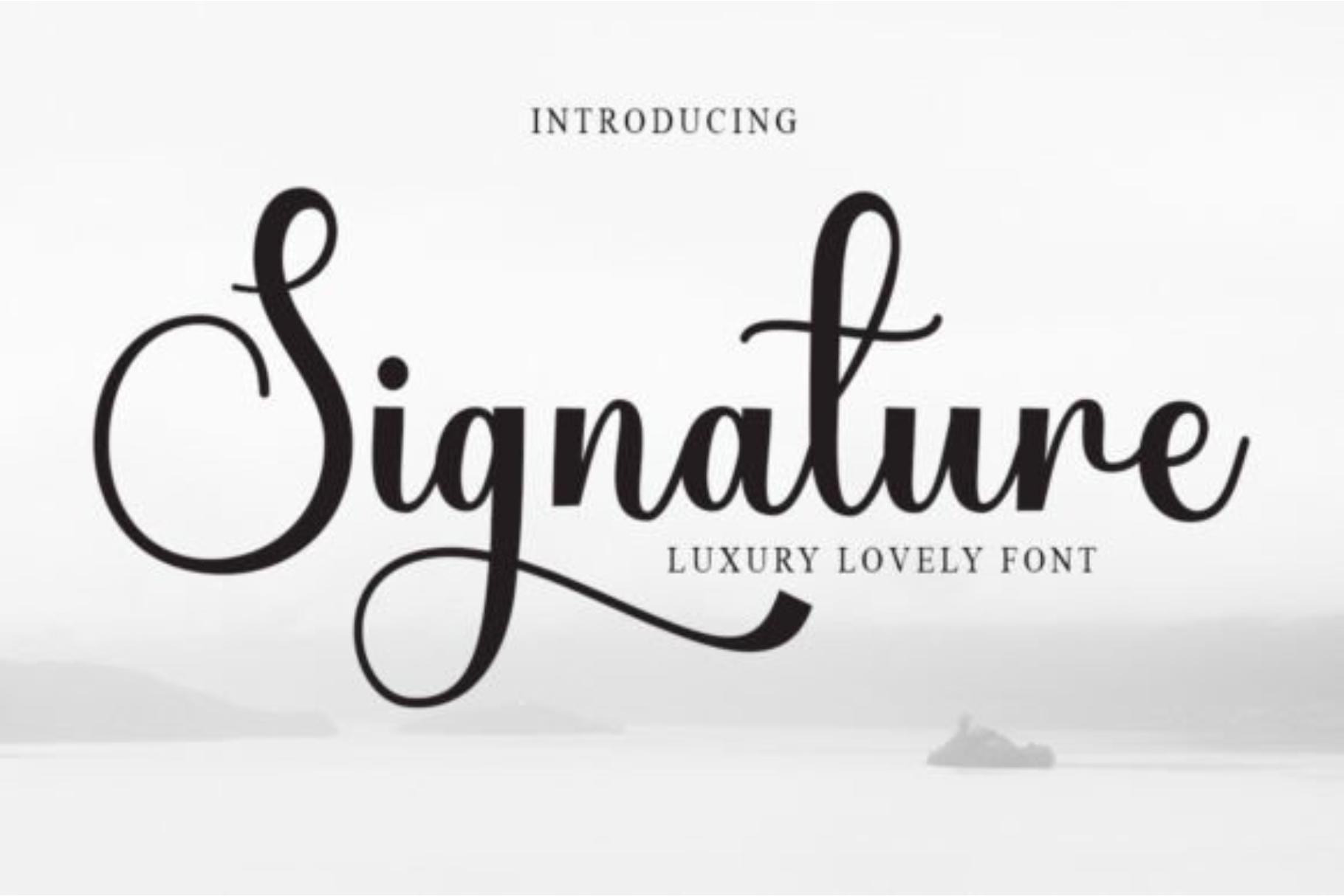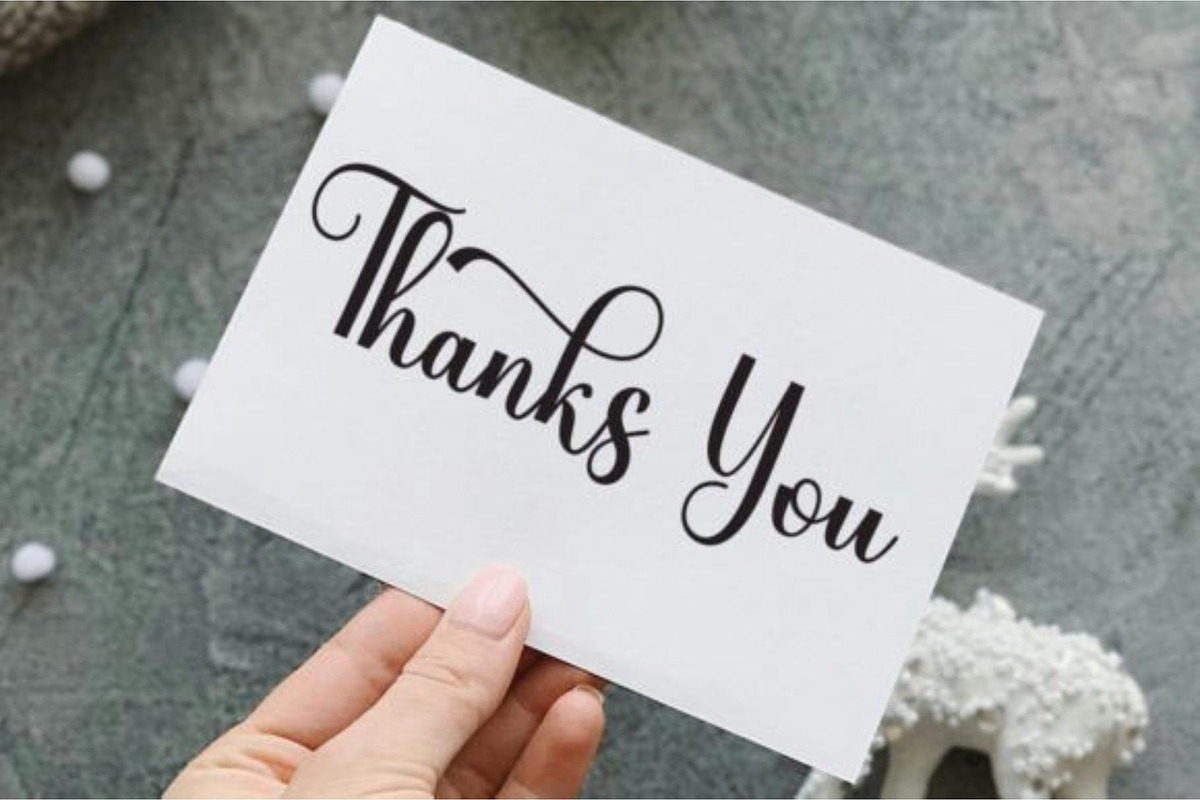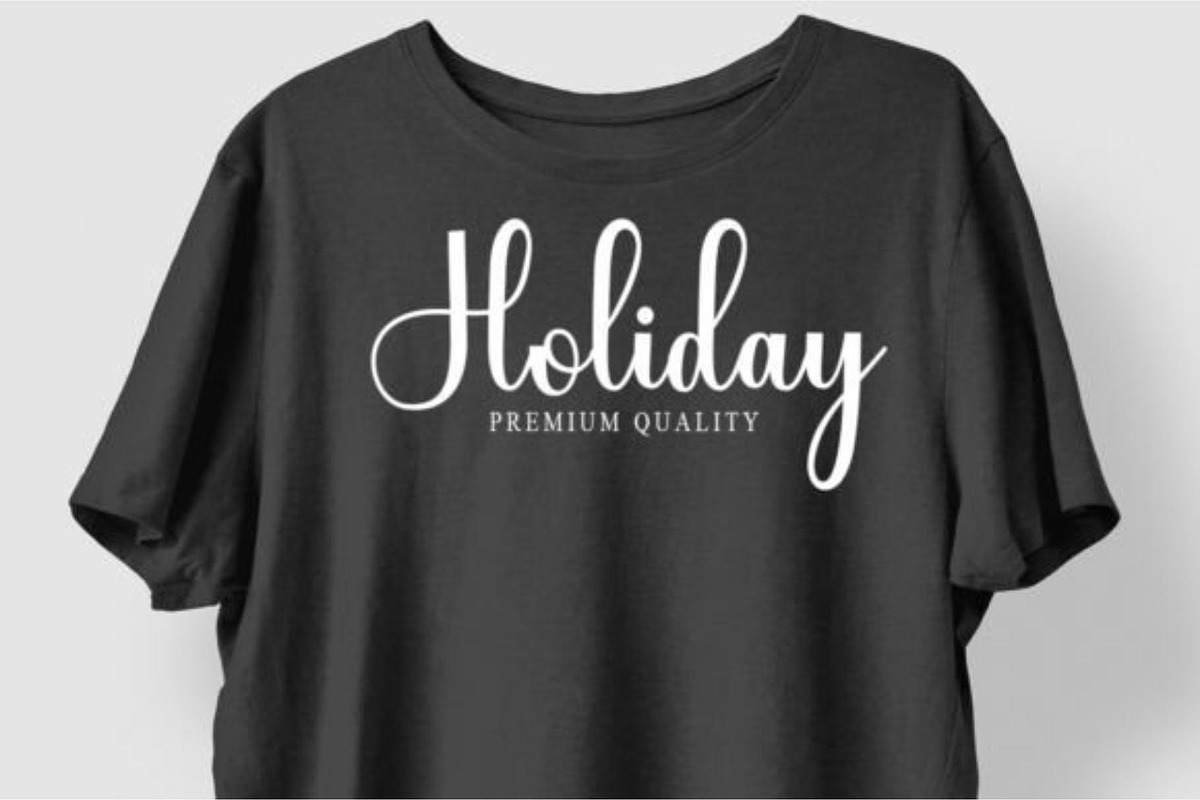
"Signature" Elegant Handwritten Font
Signature is a stylish handwritten script font with elegant flowing strokes and a natural signature style.
• Luxury branding
• Logos and logotypes
• Wedding invitations
• Business cards
• Watermarks
• Social media graphics
• Product packaging
• Beauty and fashion branding
• Photography branding
• Stationery designs
This elegant signature font adds a luxurious and professional handwritten touch to branding, invitations, logos, and creative projects.
Elegant signature font with a natural handwritten style. Perfect for branding, logos, wedding invitations, social media graphics, watermarks, packaging, and luxury business designs.